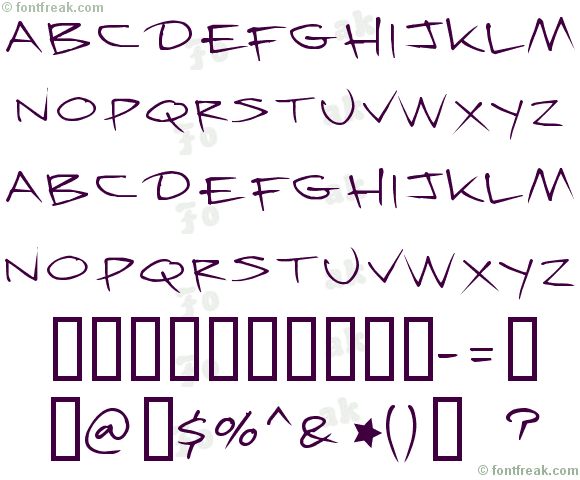
Krazy Nights
Krazy Nights is a captivating display font designed by Pizzadude that embodies a playful and whimsical aesthetic. This freeware font features a unique handwritten style, characterized by its irregular, flowing strokes and dynamic letterforms. The strokes vary in weight, lending a sense of energy and spontaneity, while the overall spacing between the characters is thoughtfully balanced, ensuring legibility despite the font's artistic flair. The decorative elements, such as exaggerated curves and loops, contribute to its charm, making it perfect for eye-catching designs.
This font is particularly well-suited for a variety of creative applications. Its lively personality makes it an excellent choice for wedding invitations, where a touch of whimsy can enhance the overall theme. Additionally, Krazy Nights can be effectively utilized in movie posters, especially for genres like comedy or animation, where a fun and engaging vibe is essential. Restaurant menus can also benefit from this font, as it adds a playful touch to the dining experience, enticing customers with its inviting appearance. Content creators looking to add a distinctive flair to their social media graphics will appreciate its eye-catching style.
Targeting graphic designers, small business owners, and content creators, Krazy Nights offers a versatile option for anyone looking to infuse their projects with creativity and individuality. Its unique design sets it apart from other fonts, allowing users to express their brand's personality or thematic elements effectively. For those interested in enhancing their visual projects, the Krazy Nights font free download is an opportunity to incorporate this delightful typeface into their design toolkit. With its distinctive features and engaging style, Krazy Nights is sure to leave a lasting impression.